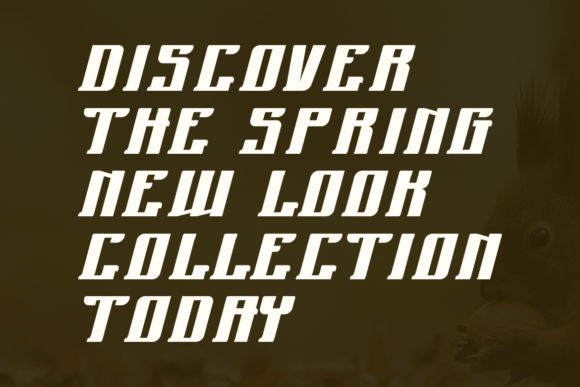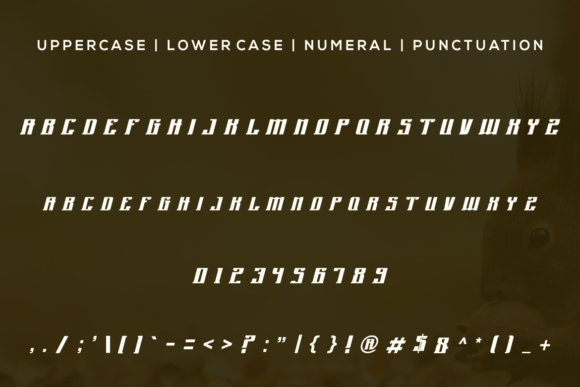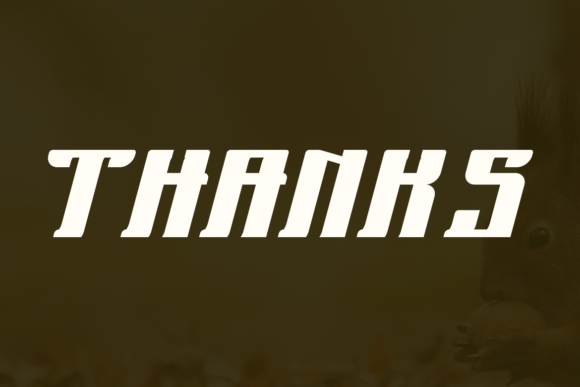
Introducing Guemoy Italic Font: Unleash Boldness in Your Designs
In the world of typography, fonts play a crucial role in conveying messages, evoking emotions, and creating lasting impressions. For designers and crafters seeking a bold and assertive display font, Guemoy Italic is an exceptional choice. This powerful font exudes masculinity and strength, making it perfect for impactful headlines, logos, and branding materials.
The Power of Guemoy Italic
Guemoy Italic is a bold and commanding font that demands attention. Its sharp edges and powerful letterforms give it a distinctive edge, setting it apart from other fonts. The font’s assertive personality makes it an excellent choice for designers looking to add a touch of confidence and authority to their work.
Key Features of Guemoy Italic
- Bold and Assertive: Guemoy Italic is designed to make a statement. Its bold and assertive personality makes it perfect for headlines, titles, and branding materials.
- Masculine and Strong: The font’s sharp edges and powerful letterforms give it a distinctly masculine and strong feel, making it ideal for designs that require a bold and confident look.
- Versatile: Guemoy Italic can be used for a wide range of design projects, from logos and branding materials to posters, flyers, and digital media.
- High-Impact: The font’s bold and assertive personality makes it perfect for creating high-impact designs that grab attention and leave a lasting impression.
Guemoy Italic is an excellent choice for designers and crafters looking to add a touch of boldness and confidence to their work. Whether you’re creating a logo, branding materials, or digital media, this font is sure to make a lasting impression.
Tips for Using Guemoy Italic
- Use it sparingly: Guemoy Italic is a bold font, so use it sparingly to avoid overwhelming your design.
- Pair it with contrasting fonts: Pair Guemoy Italic with contrasting fonts to create visual interest and add depth to your design.
- Experiment with colors: Guemoy Italic looks great in bold colors, so experiment with different colors to find the perfect combination for your design.
Why Choose Guemoy Italic?
Guemoy Italic is an exceptional font that offers a unique combination of boldness, assertiveness, and versatility. Here are just a few reasons why you should choose Guemoy Italic for your next design project:
- Unique and distinctive: Guemoy Italic is a one-of-a-kind font that will set your design apart from the rest.
- High-quality: Guemoy Italic is a high-quality font that is designed to deliver exceptional results.
Guemoy Italic is a bold and assertive display font that exudes masculinity and strength. With its sharp edges and powerful letterforms, it commands attention and makes a bold statement. Perfect for impactful headlines, logos, and branding materials, Guemoy adds a touch of confidence and authority to any design. Embrace the boldness and make a lasting impression with Guemoy Italic.